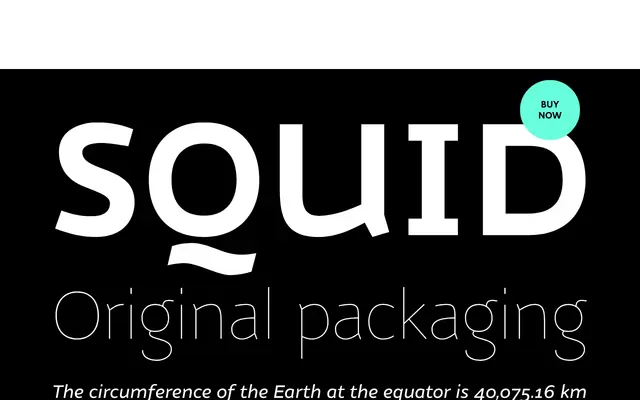
Nubian
One of G-Type's earliest typefaces, a modern sans serif with open, semi-extended proportions designed for consistent legibility across print and screen.
Five weights from Thin to Bold, each with true matching italics, give the family a useful range for both text and display work. The letterforms are drawn with a noticeably open aperture and semi-extended width that produces even colour at running text sizes. Each font includes lining and old-style figures, standard and discretionary ligatures, fractions and ordinals, with coverage across West European, Central and East European, Baltic and Turkish Latin scripts.
Nubian is described as a crisply modern sans serif with open, semi-extended proportions and even colour; its legibility-focused construction and text-friendly character place it in the humanist sans tradition.